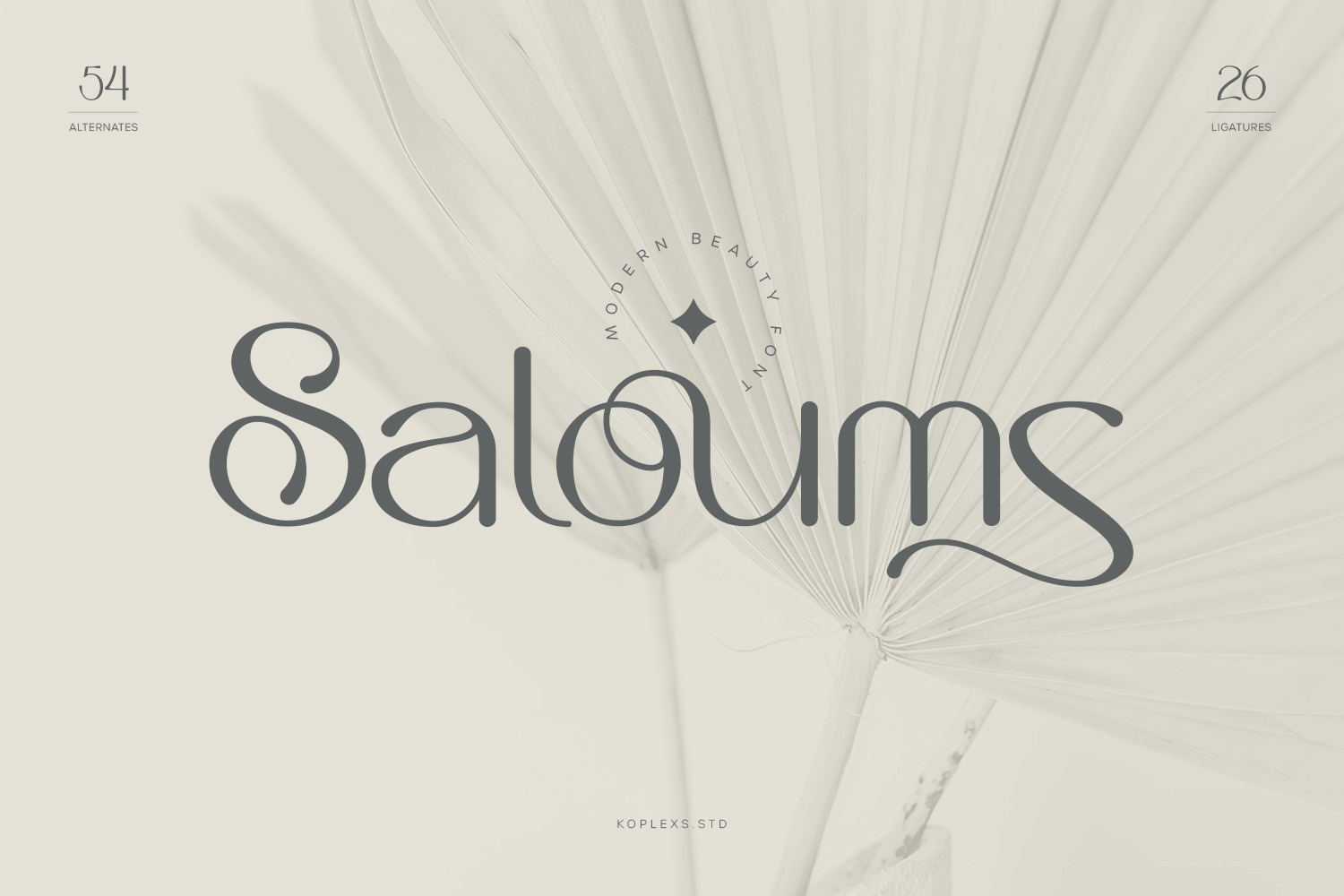
Saloums - Modern Sans Serif Font
Saloums font is a collection of modern, feminine, beautiful and classy characters, giving you a unique look for any branding or design need.
Saloums font has a blend of beauty and classy feel, which has a variety of uses but is primarily intended for logos, book covers, perfumes, fashion magazines, or invitations. Not only will you find lots of decorative characters, but also the number of unique alternative characters will make you fall in love with this font.
- Ligatures Features.